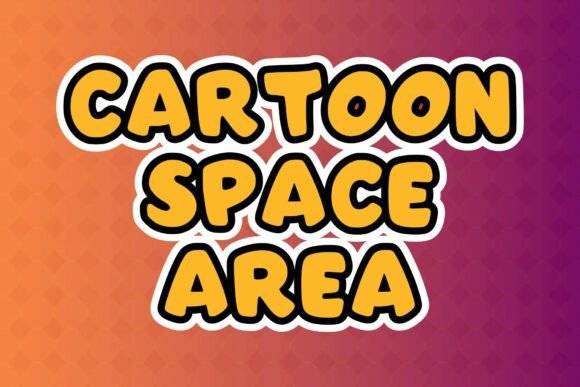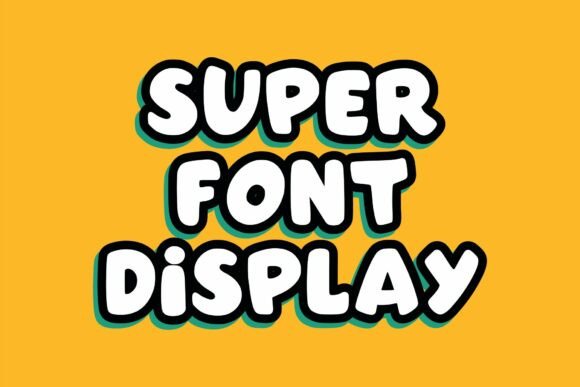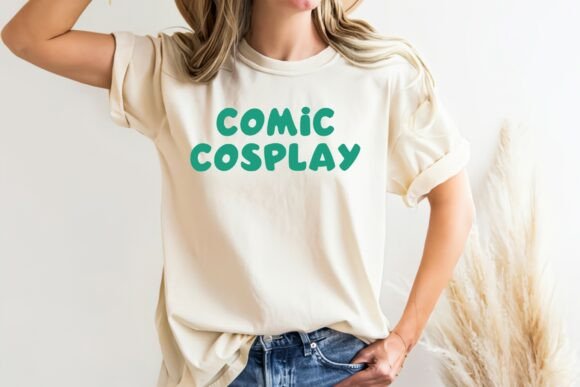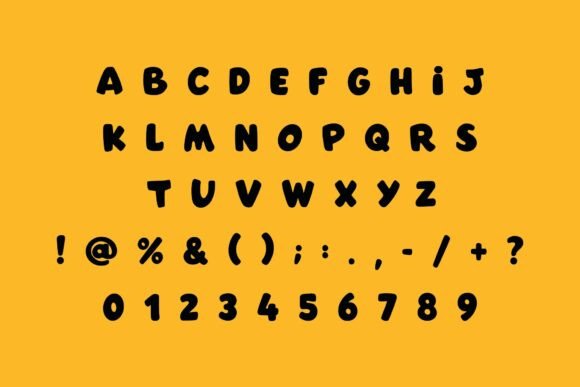
Unleash the Energy of Comics with the Comic Cosplay Font
Are you looking to add a burst of energy and excitement to your design projects? Look no further than the Comic Cosplay font! This bold, “bubbly” display font is perfect for pop-culture branding, event posters, gaming content, YouTube thumbnails, and convention signage. With its heavy black outline and 3D shadow effect, the Comic Cosplay font brings the action-packed world of comics and superheroes to your design toolkit.
A Font that’s Full of Life and Action
The Comic Cosplay font is designed to capture the sense of fun and excitement that comes with the world of comics and superheroes. Its bold, eye-catching design makes it perfect for headline-grabbing hero sections on websites, bold apparel prints, and attention-grabbing graphics. The font’s high-contrast “green and white” default look (as seen in previews) is sure to scream for attention and make your project stand out from the crowd.
Easy to Integrate and Versatile
Integrating the Comic Cosplay font into your work is easy, making it a great addition to your design toolkit. The font pairs best with action-oriented graphics, starbursts, and vibrant primary colors, allowing you to create visually stunning designs that are sure to impress. Whether you’re a designer, crafter, or DIY enthusiast, the Comic Cosplay font is a versatile tool that can be used to add a touch of excitement and energy to your projects.
The Comic Cosplay font is a must-have for designers and crafters who want to add a touch of pop culture flair to their work. Whether you’re creating graphics for a gaming community, designing posters for a comic book convention, or creating custom apparel for a superhero fan, this font is sure to deliver. Its bold, eye-catching design makes it perfect for a wide range of applications, from digital graphics to print materials.
Key Features of the Comic Cosplay Font
- Bold, “bubbly” display font: Perfect for headline-grabbing graphics and attention-grabbing designs
- Heavy black outline and 3D shadow effect: Adds depth and dimension to your designs
- High-contrast “green and white” default look: Sures to scream for attention and make your project stand out
- Pairs well with action-oriented graphics, starbursts, and vibrant primary colors: Allows you to create visually stunning designs
- Easy to integrate into your work: Makes it a great addition to your design toolkit
Tips for Using the Comic Cosplay Font
Here are a few tips for getting the most out of the Comic Cosplay font:
- Use it for headlines and titles: The Comic Cosplay font is perfect for grabbing attention and making a statement
- Pair it with bold graphics and colors: The font pairs well with action-oriented graphics, starbursts, and vibrant primary colors
- Experiment with different effects: Try adding different effects, such as shadows or outlines, to give your text a unique look
- Use it for a wide range of applications: The Comic Cosplay font is versatile and can be used for everything from digital graphics to print materials